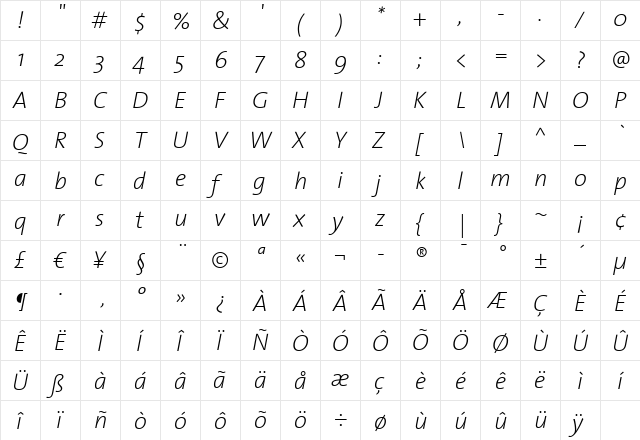
TheSans ExtraLight Italic Font Preview
| Style | ExtraLight Italic |
| Foundry | Copr. Luc as de Groot |
Design Context for TheSans Typeface
TheSans offers clean, dependable letterforms without strong stylistic allegiance, making it a practical choice for designers who need flexibility. The dynamic lean of this cut emphasises speed and emphasis in any layout. The delicate stroke weight brings airiness and refinement to layouts.